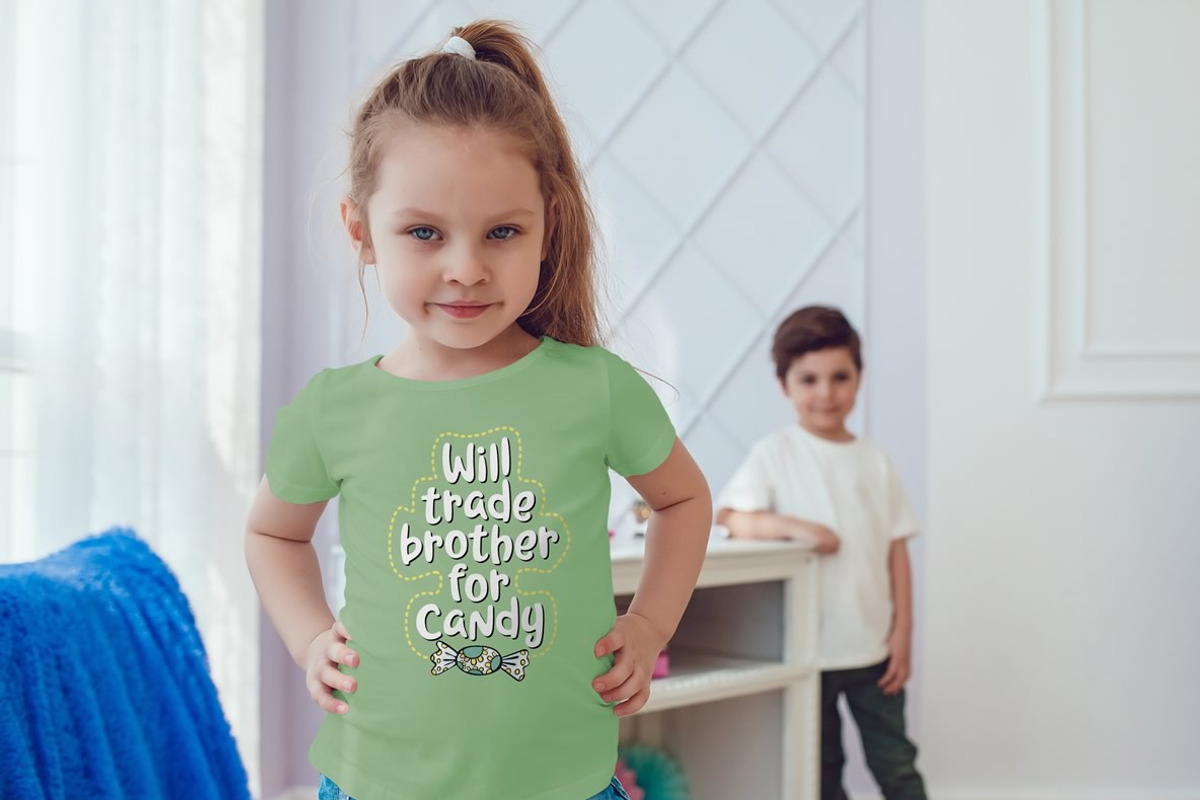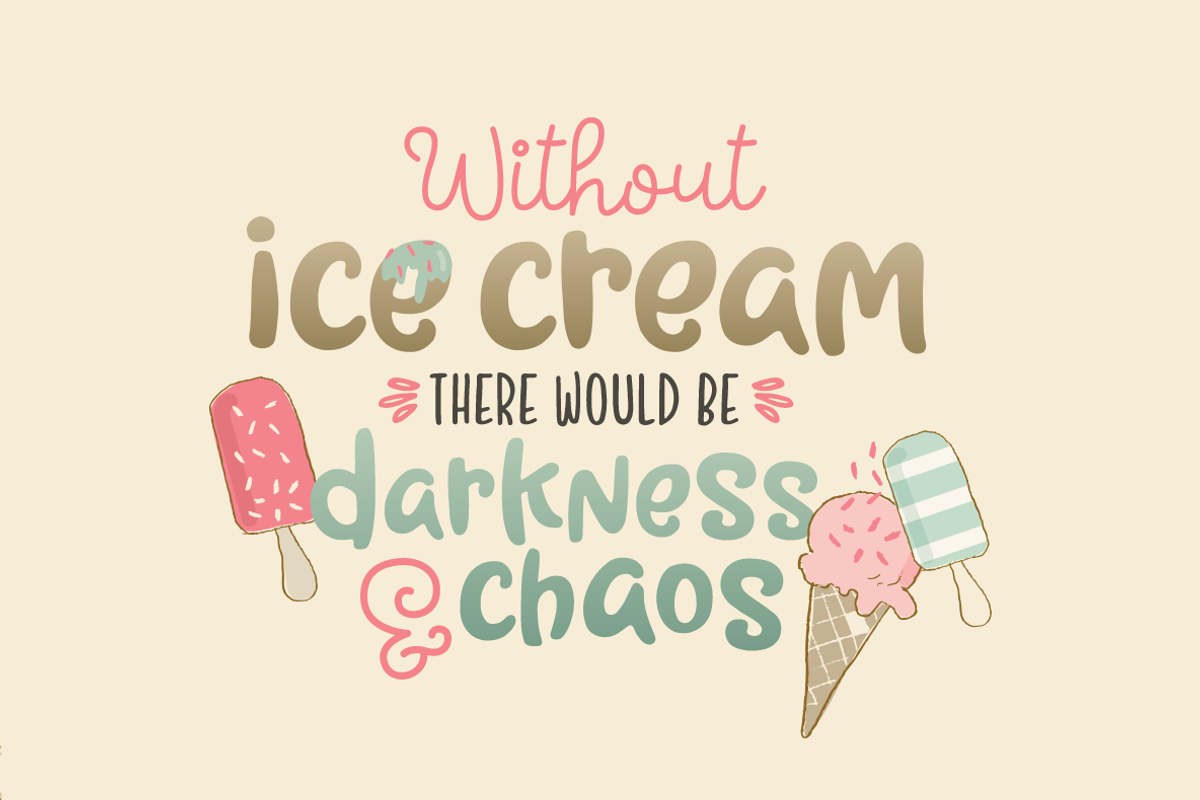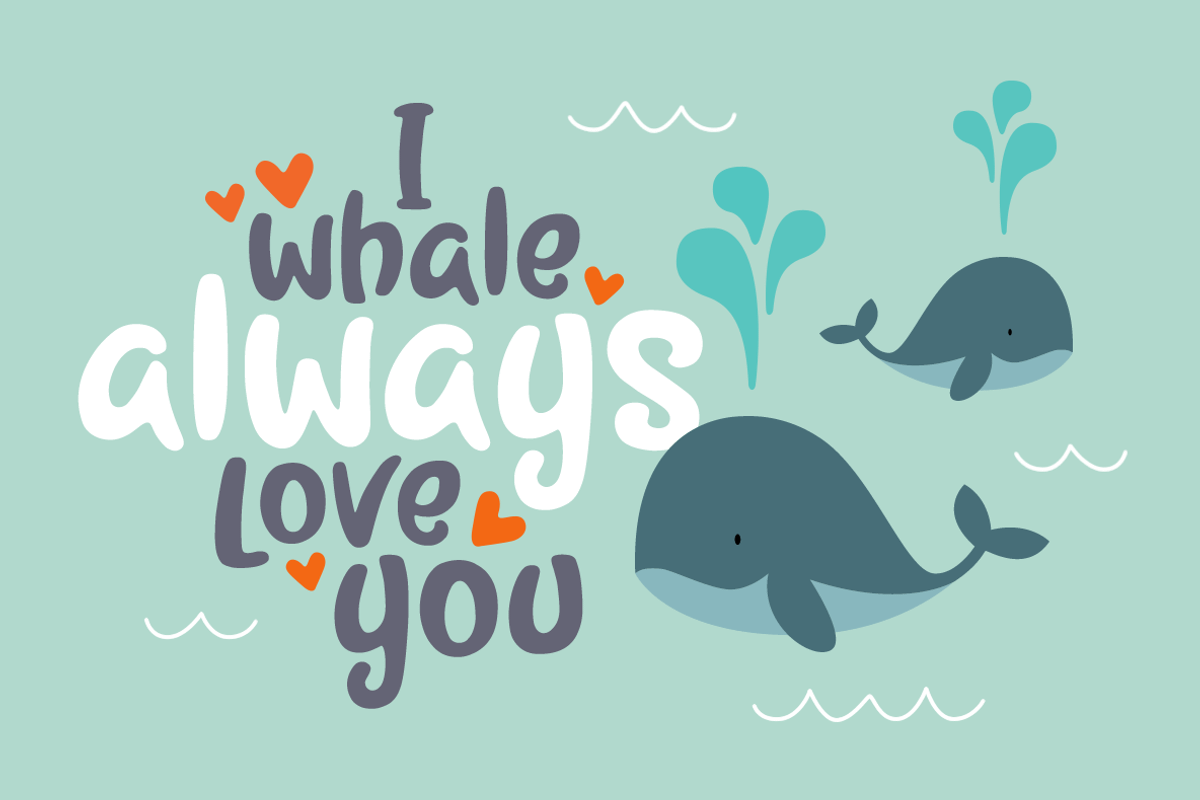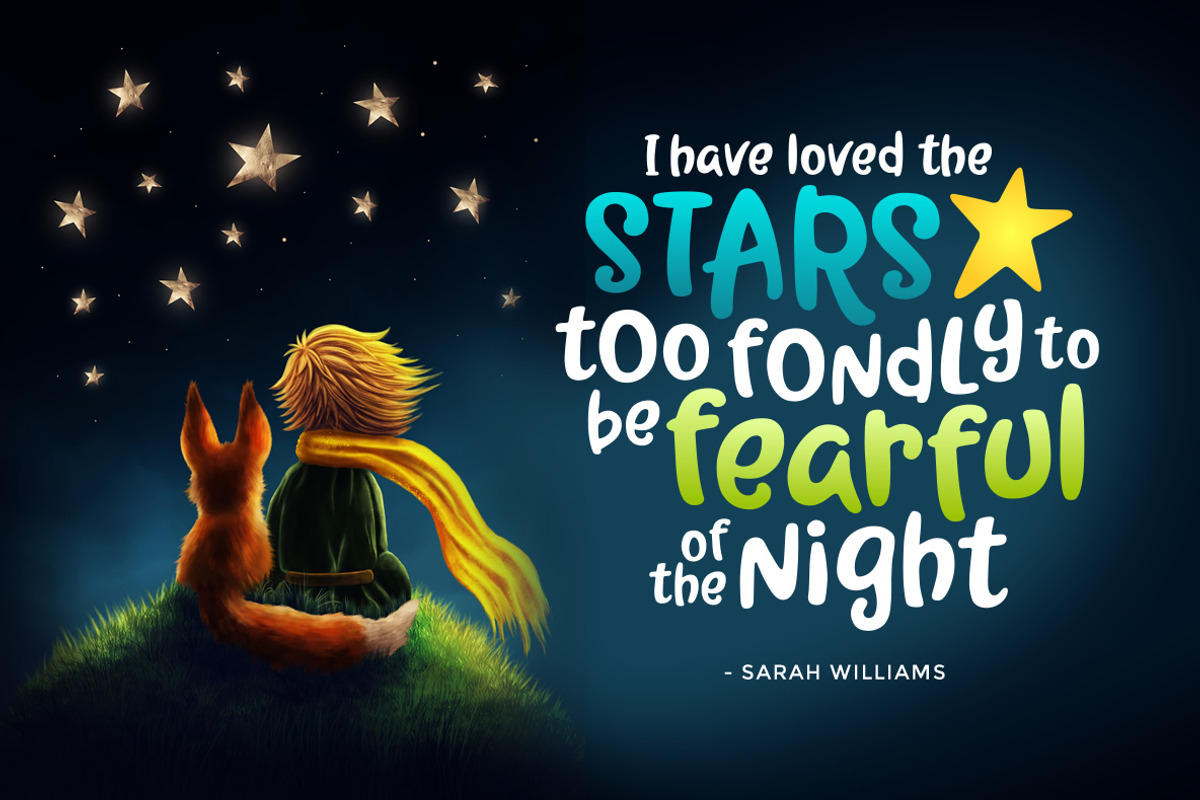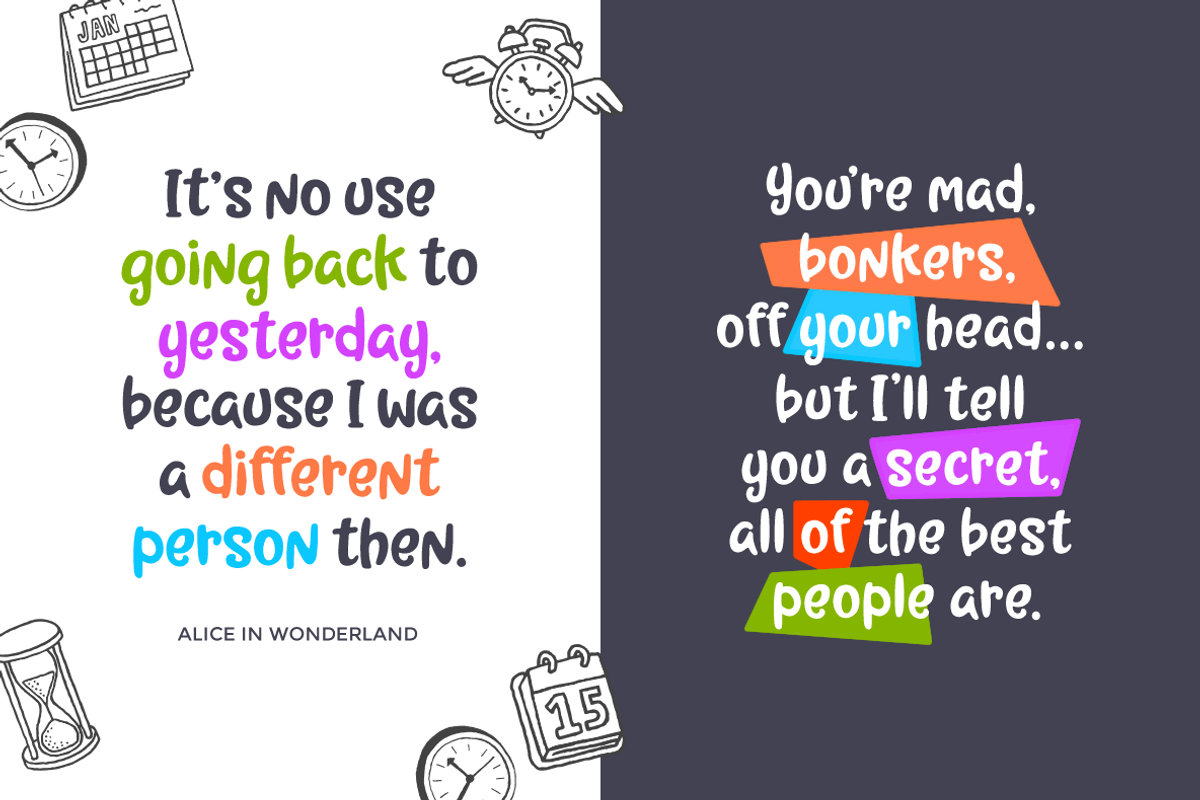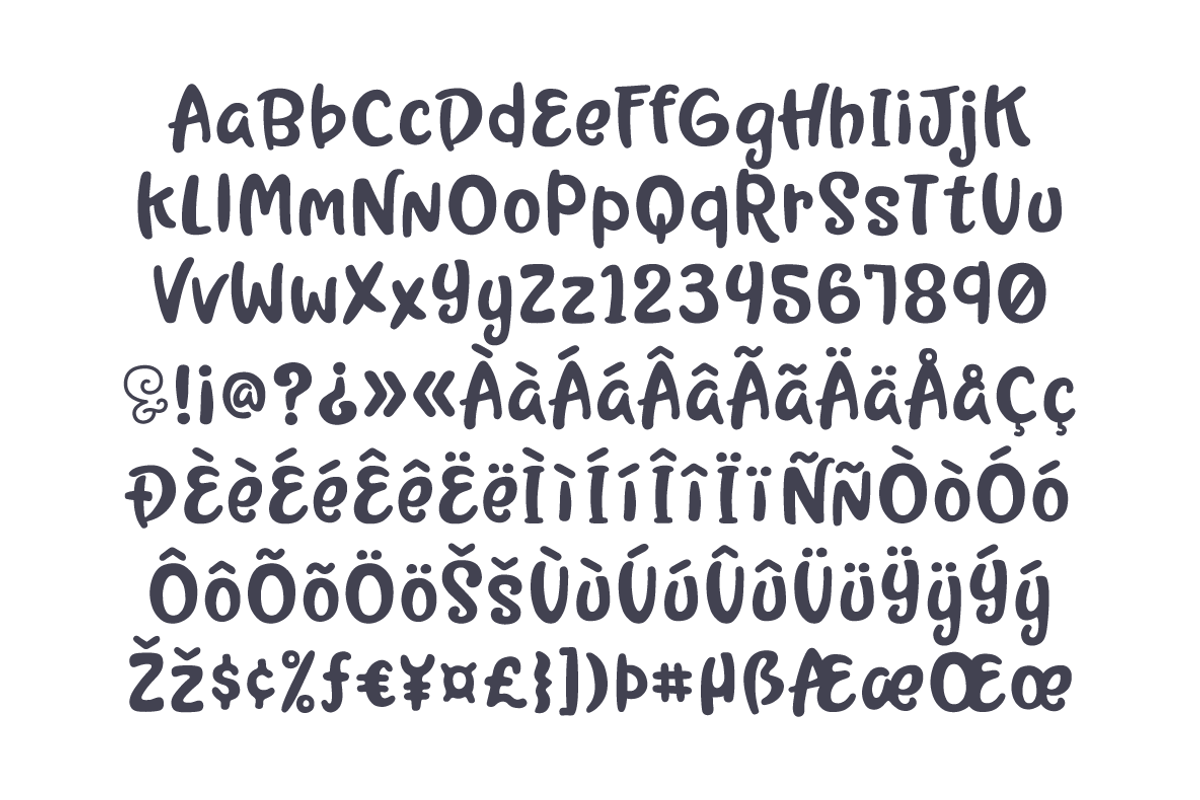
Milk & Honey Font
Introducing: Milk & Honey! A sweet and simple hand-drawn font. Its bold and curvy characters can add a bunch of personality to any project.
- Its bold and curvy characters can add a bunch of personality to any project.
Why Milk & Honey Font is worth a look
Milk & Honey Font by Denise Chandler fits naturally into Branding, posters, packaging, typography.